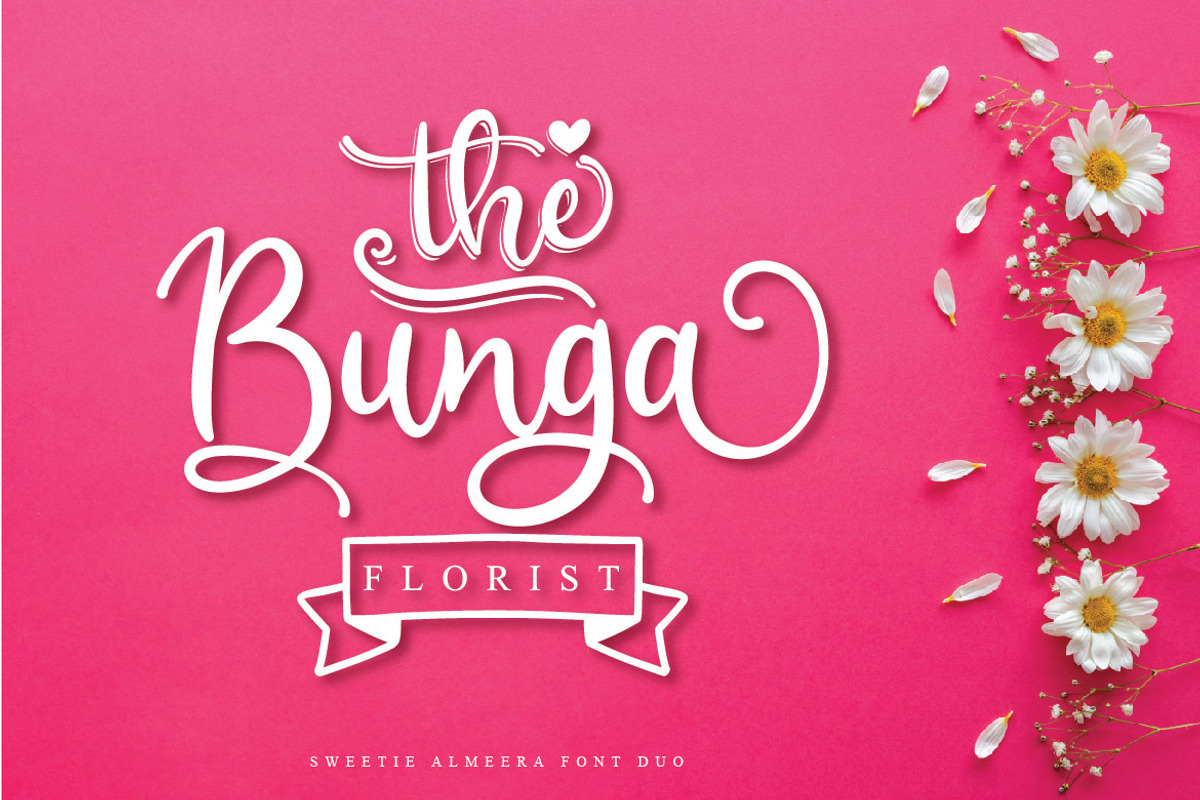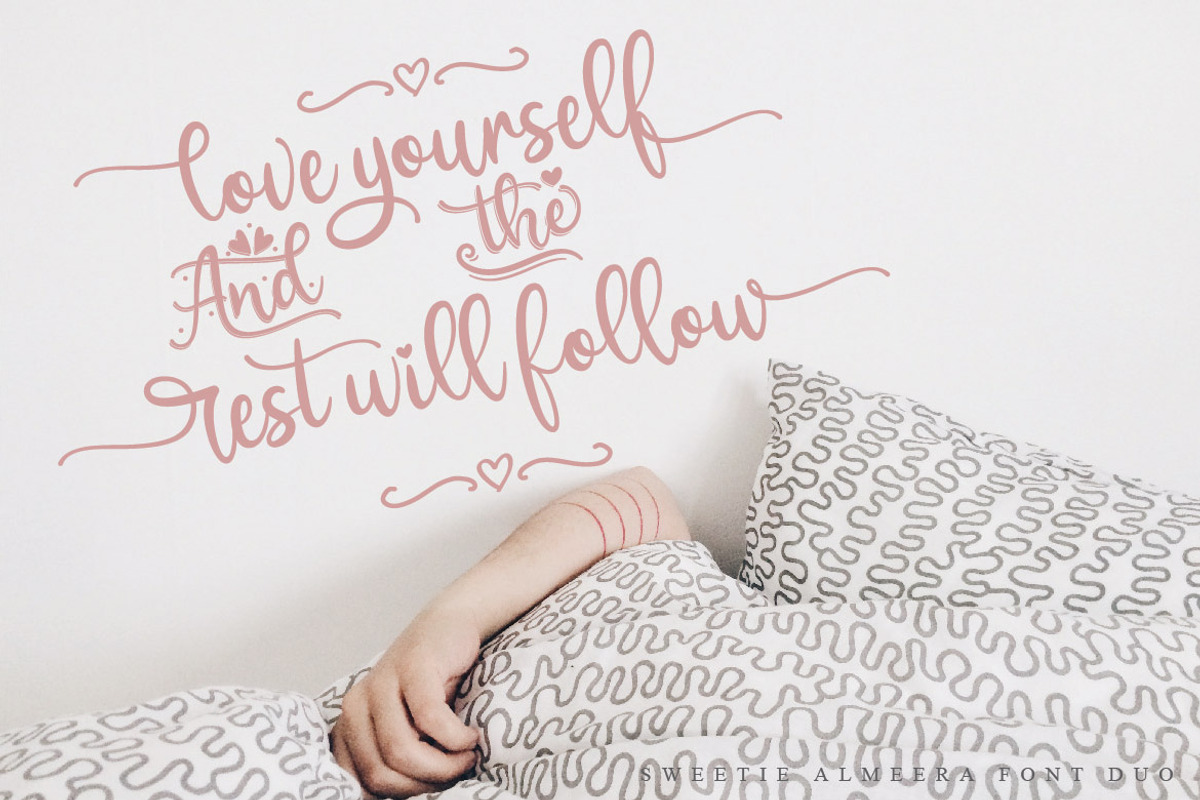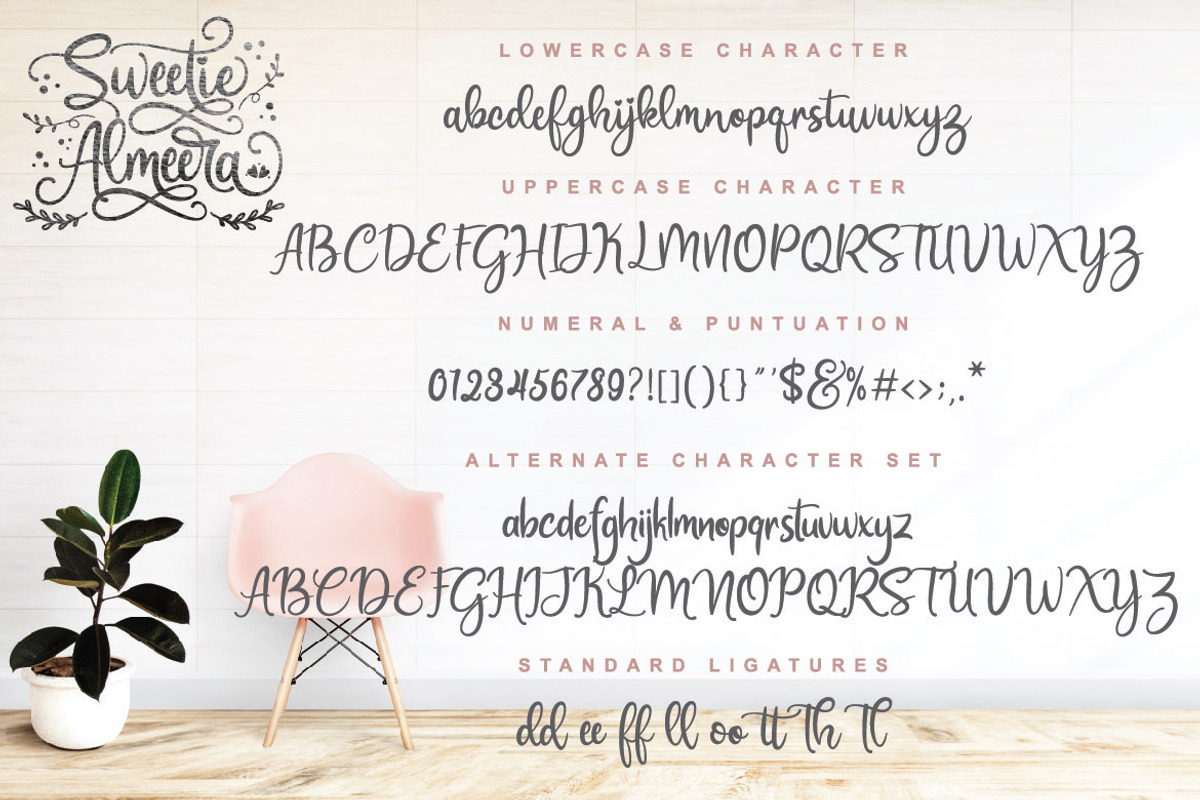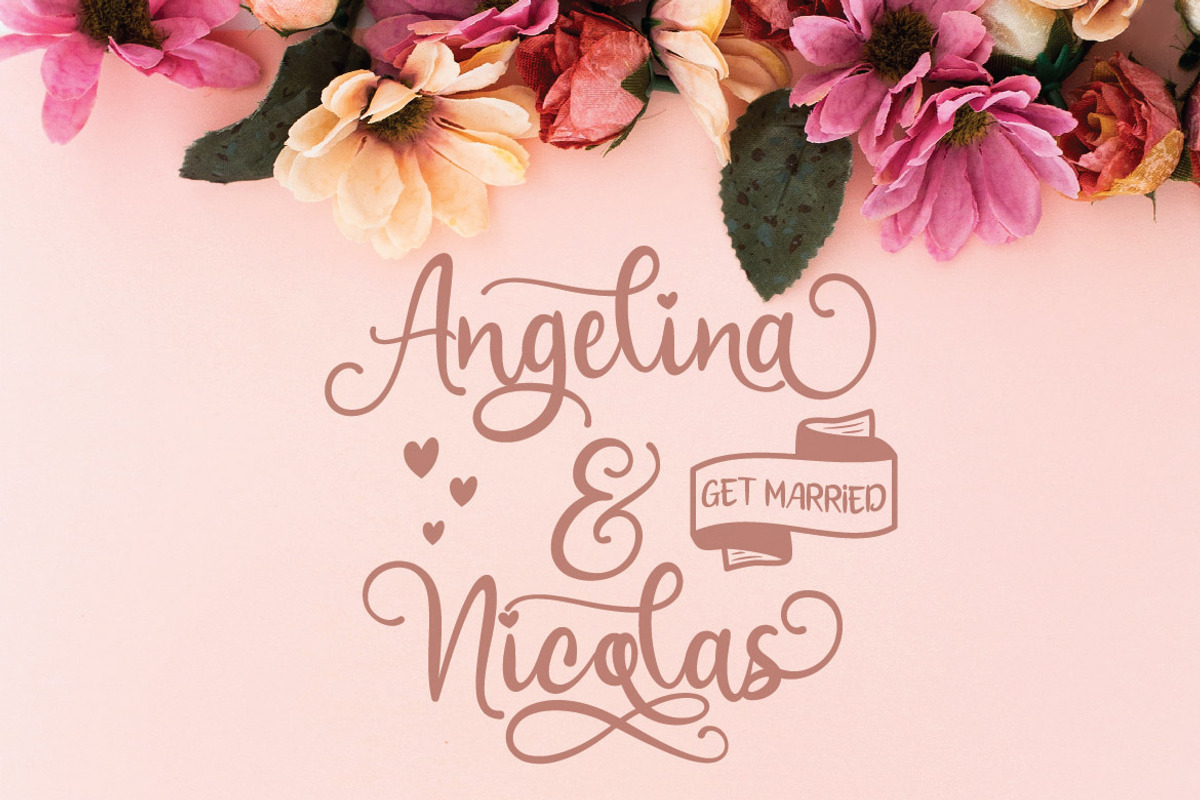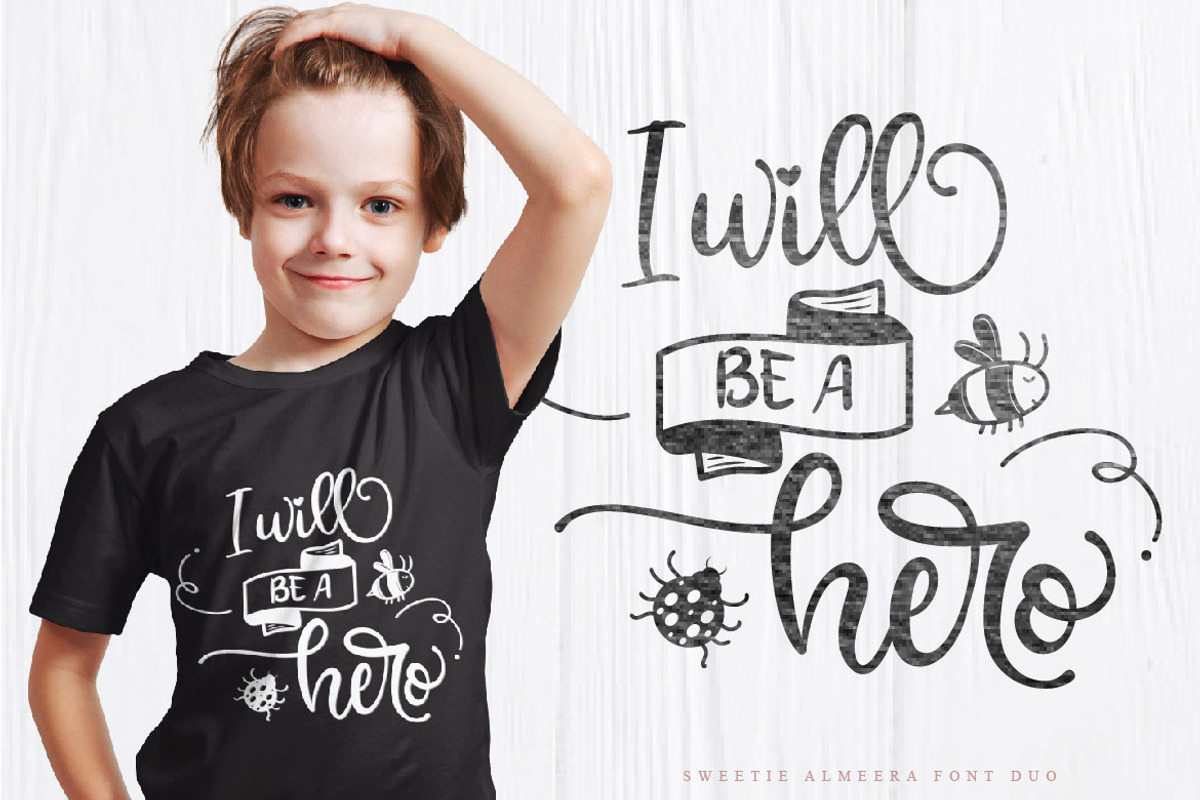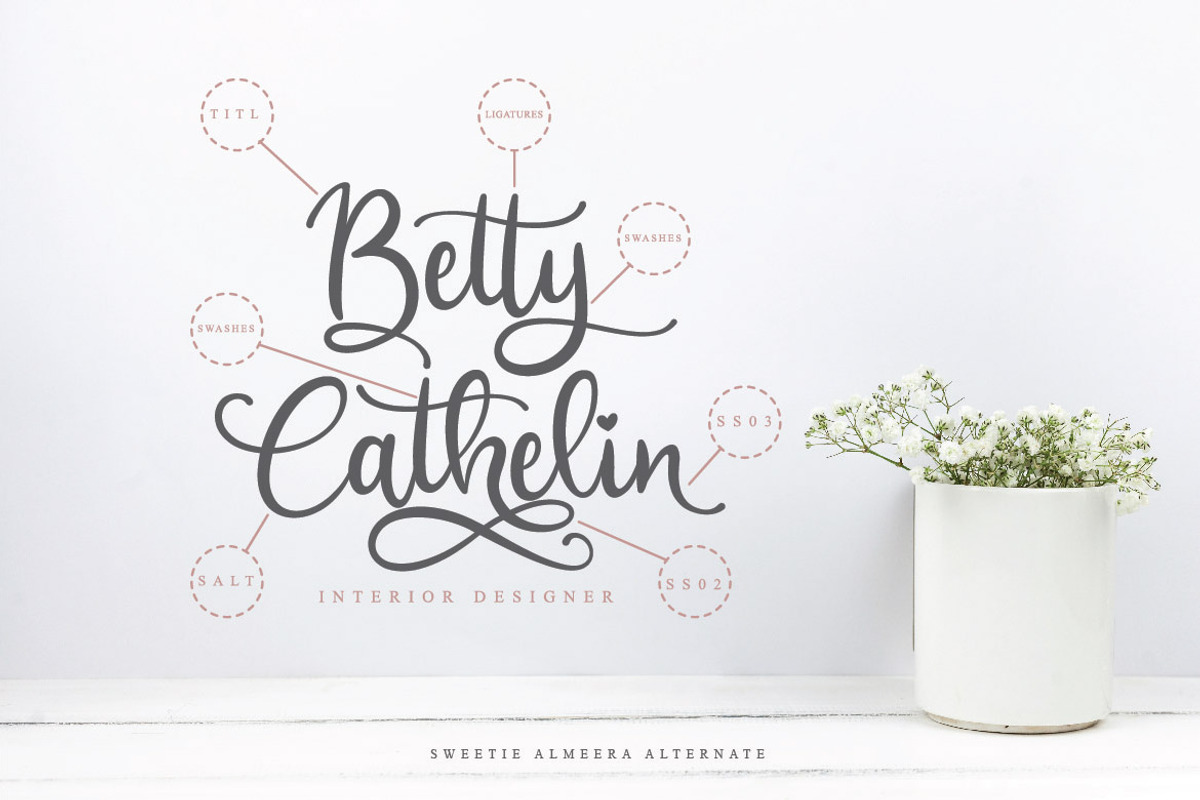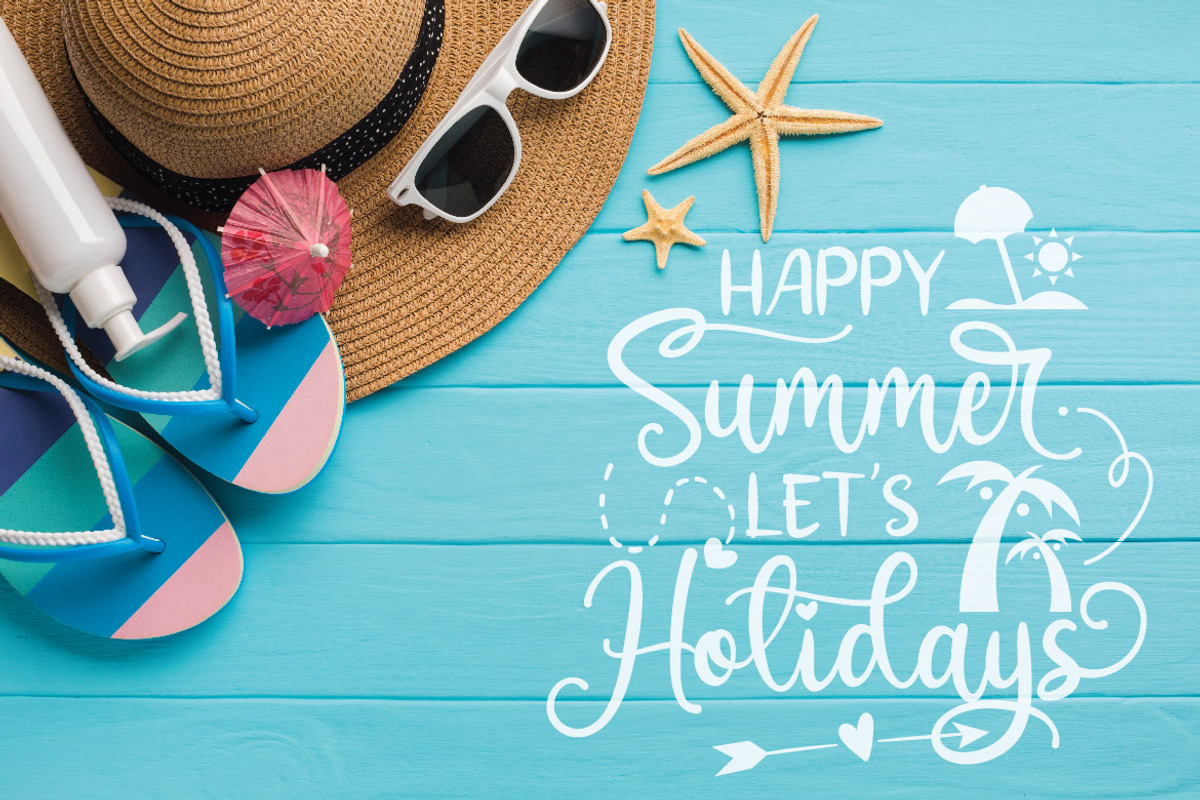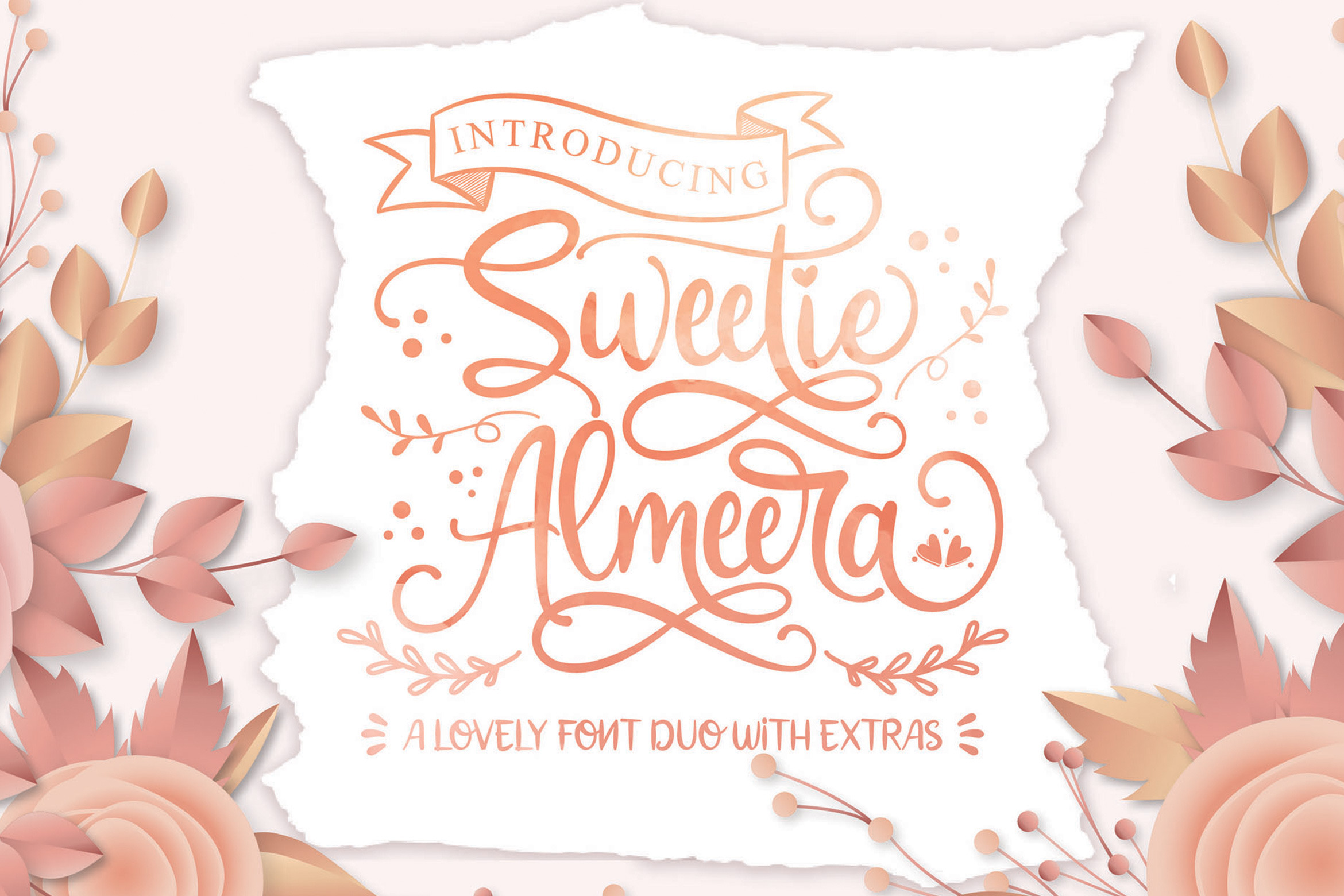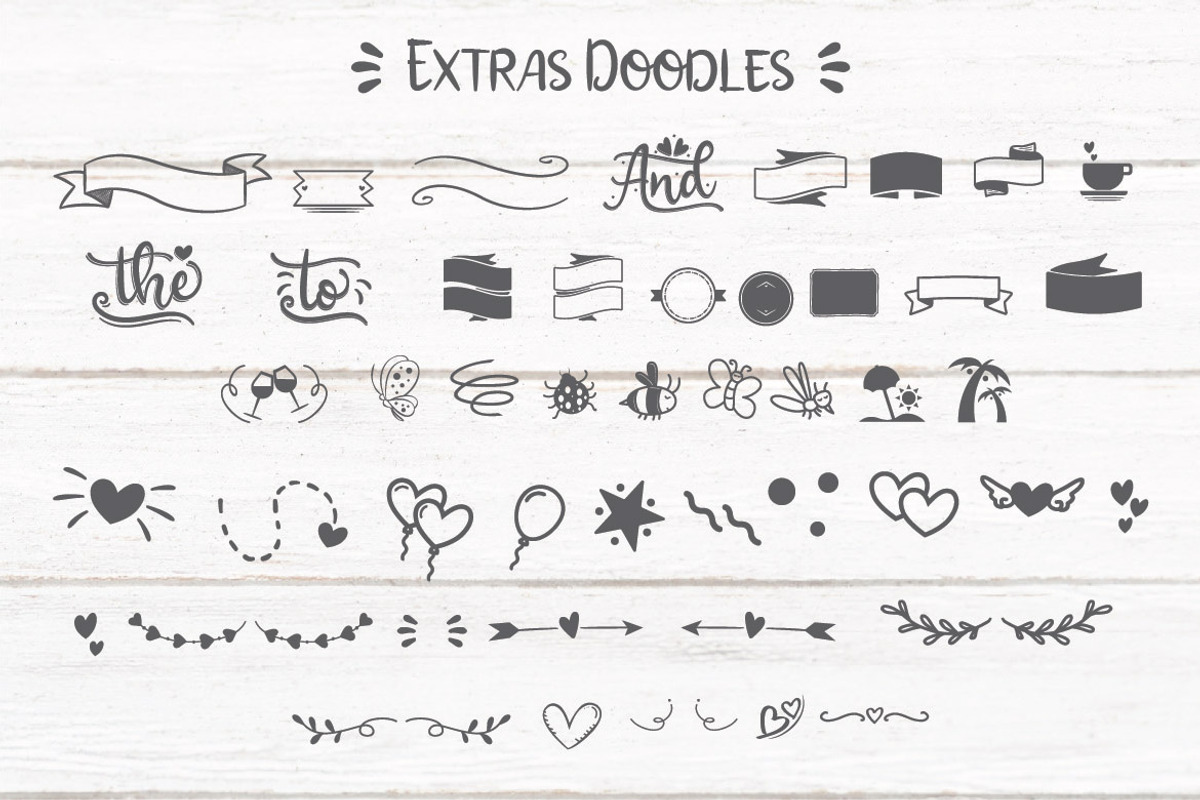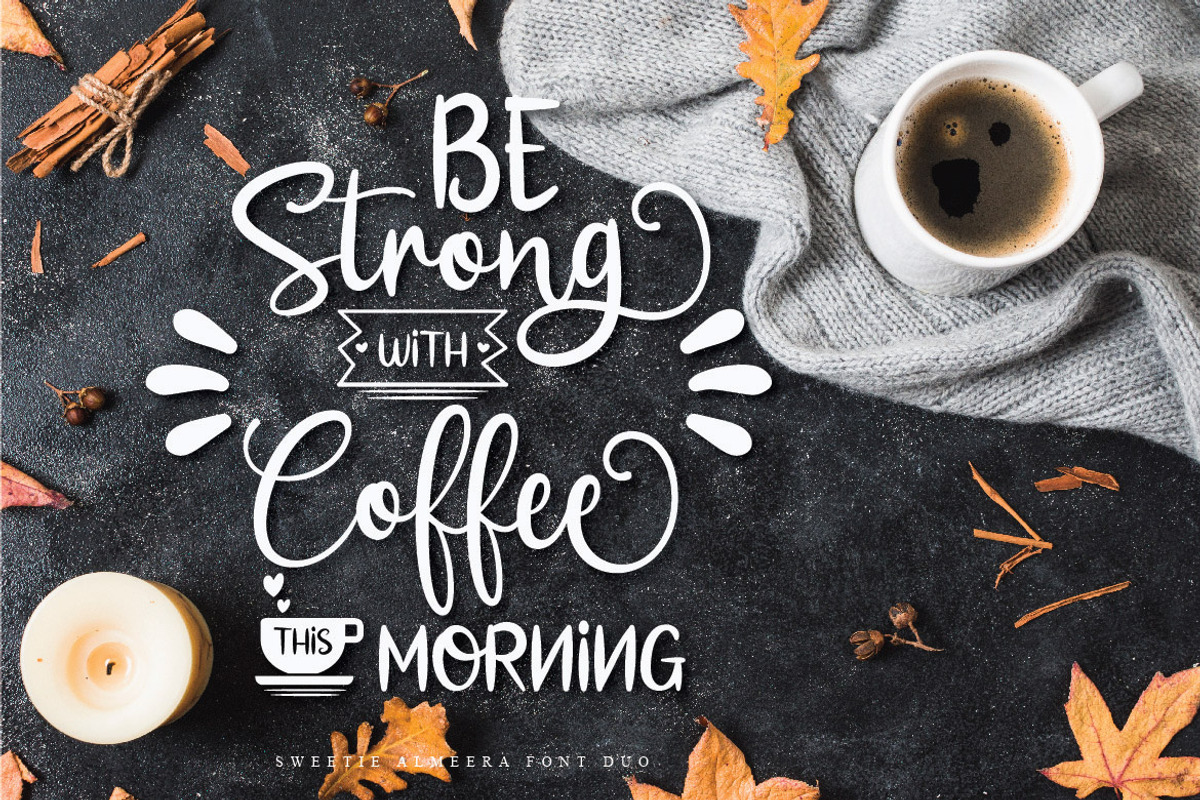
Sweetie Almeera Font Duo
Sweetie Almeera Font Duo This is our newest product ,Sweetie Almeera comes with Sweetie Almeera script with many alternate character and Sweetie Almeera Sans. Sweetie Almeera is really great font for logo, blog/web headline, invitation, valentines, chrismast, wedding, poster, cafe/resto sign, and many others.